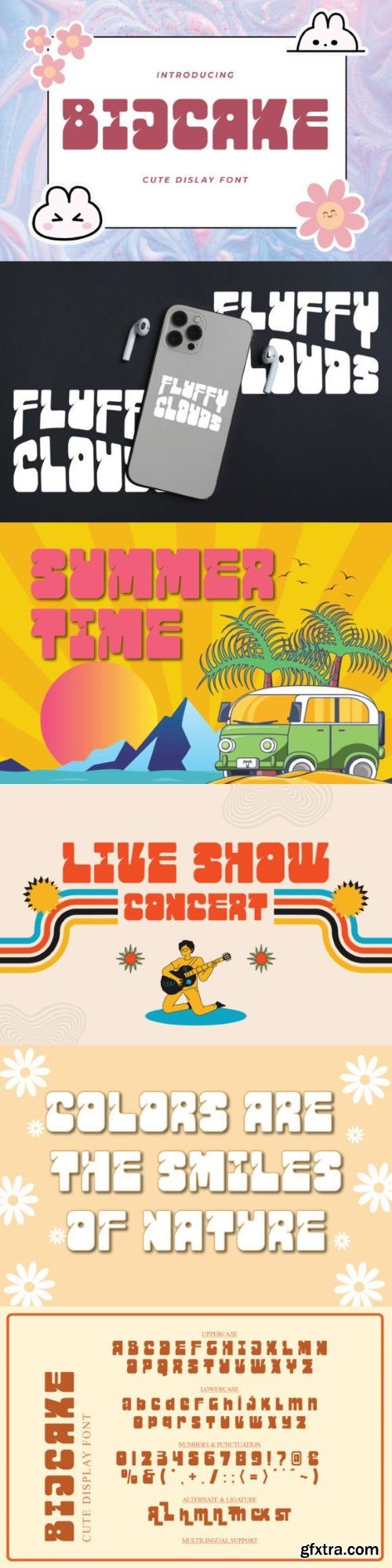
比卡克字体
Introducing “Bijcake,” a charming and cute display font that sweetens your designs with its delightful appeal. With playful letterforms and a touch of whimsy, Bijcake is perfect for adding a sprinkle of cuteness to your projects. Whether you’re creating invitations, greeting cards, or any design that needs a lovable touch, Bijcake is your go-to font for capturing hearts and spreading joy. Embrace the adorable side of typography with this irresistibly cute display font.